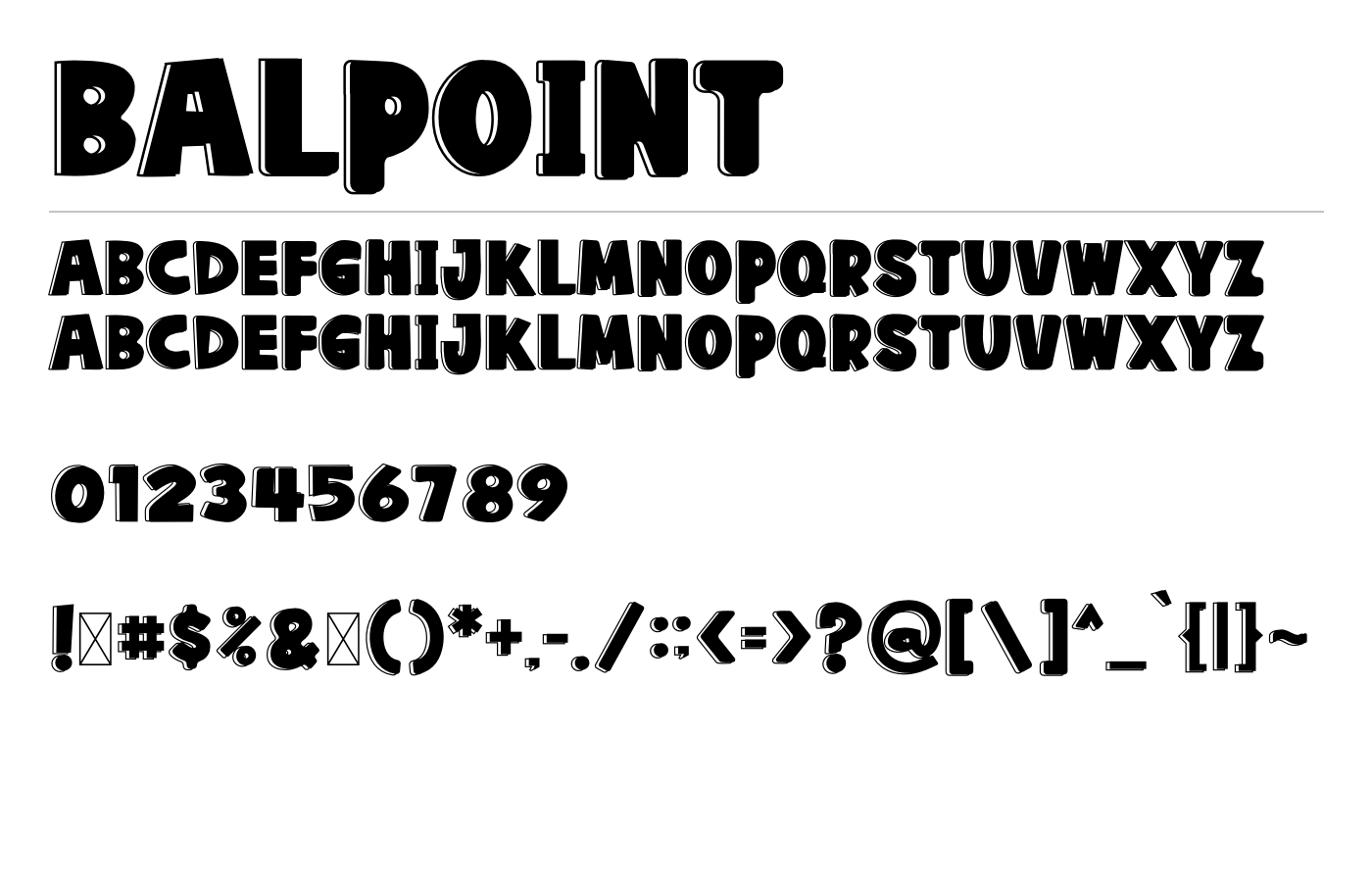
Balpoint is a bold, playful sans serif font with a chunky, slightly condensed build and soft, rounded edges that give it a friendly, approachable feel. Its high contrast shadow detail adds a fun, retro vibe, making it perfect for eye-catching headlines, posters, and branding that wants to convey energy and creativity. This font works well for projects that need a strong, lively personality without losing clarity.
Balpoint Font
About Balpoint Font